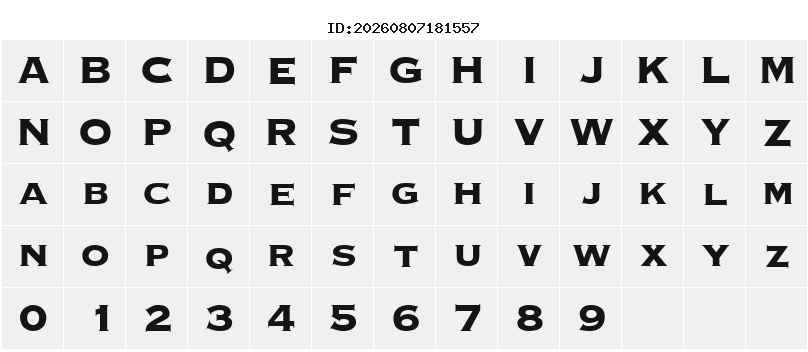
OCopperplate-Heavy Preview
• Font Name: OCopperplate-Heavy
• Font Style: Heavy
• Full Font Name: OCopperplate Heavy
• PostScript Name: OCopperplate Heavy
About OCopperplate-Heavy.ttf
OCopperplate-Heavy.ttf is a modern, elegant sans-serif font designed for ultimate readability and visual harmony. Perfect for branding, headlines, web design, and print materials.